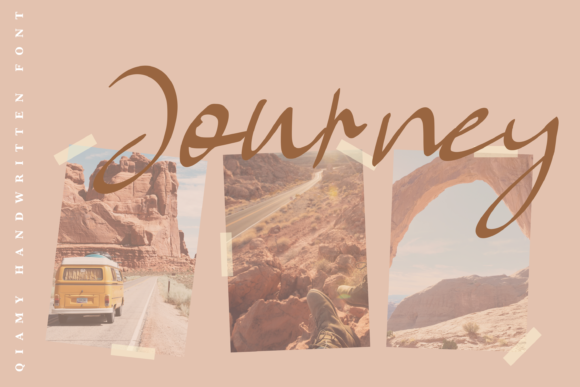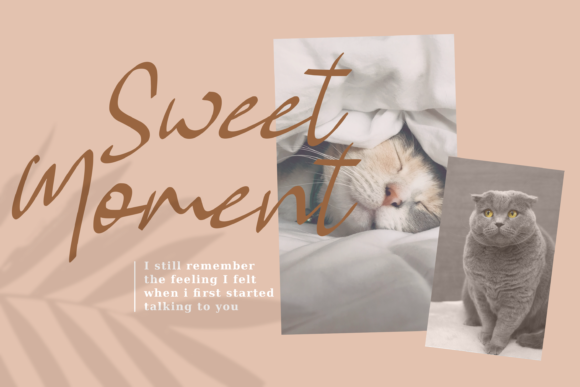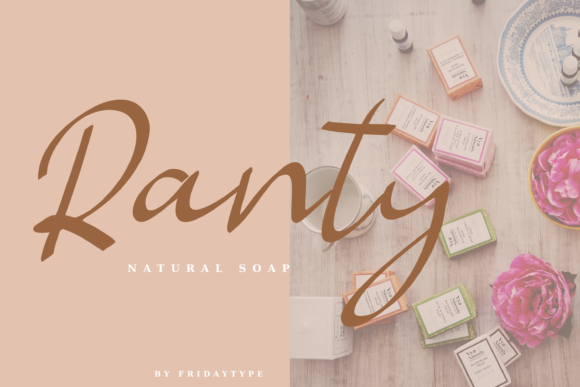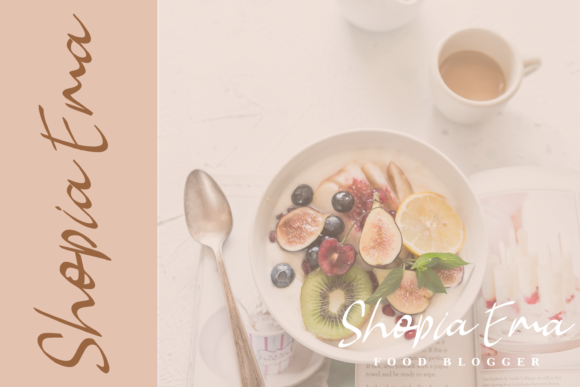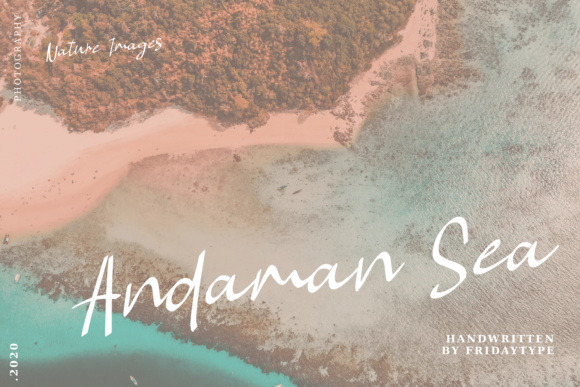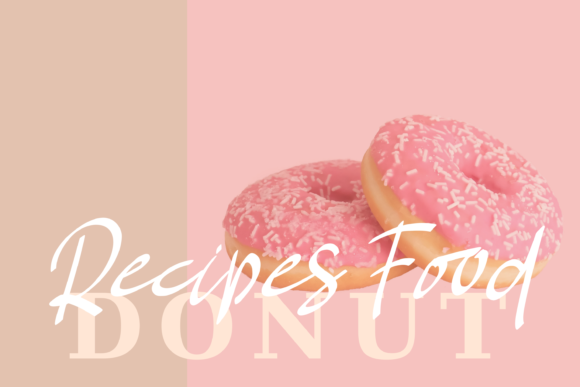
Qiamy Font
About Qiamy Font
Qiamy is a handmade signature style font with stunning characters. With its quick strokes and charming appeal, it belongs in any crafter’s library.